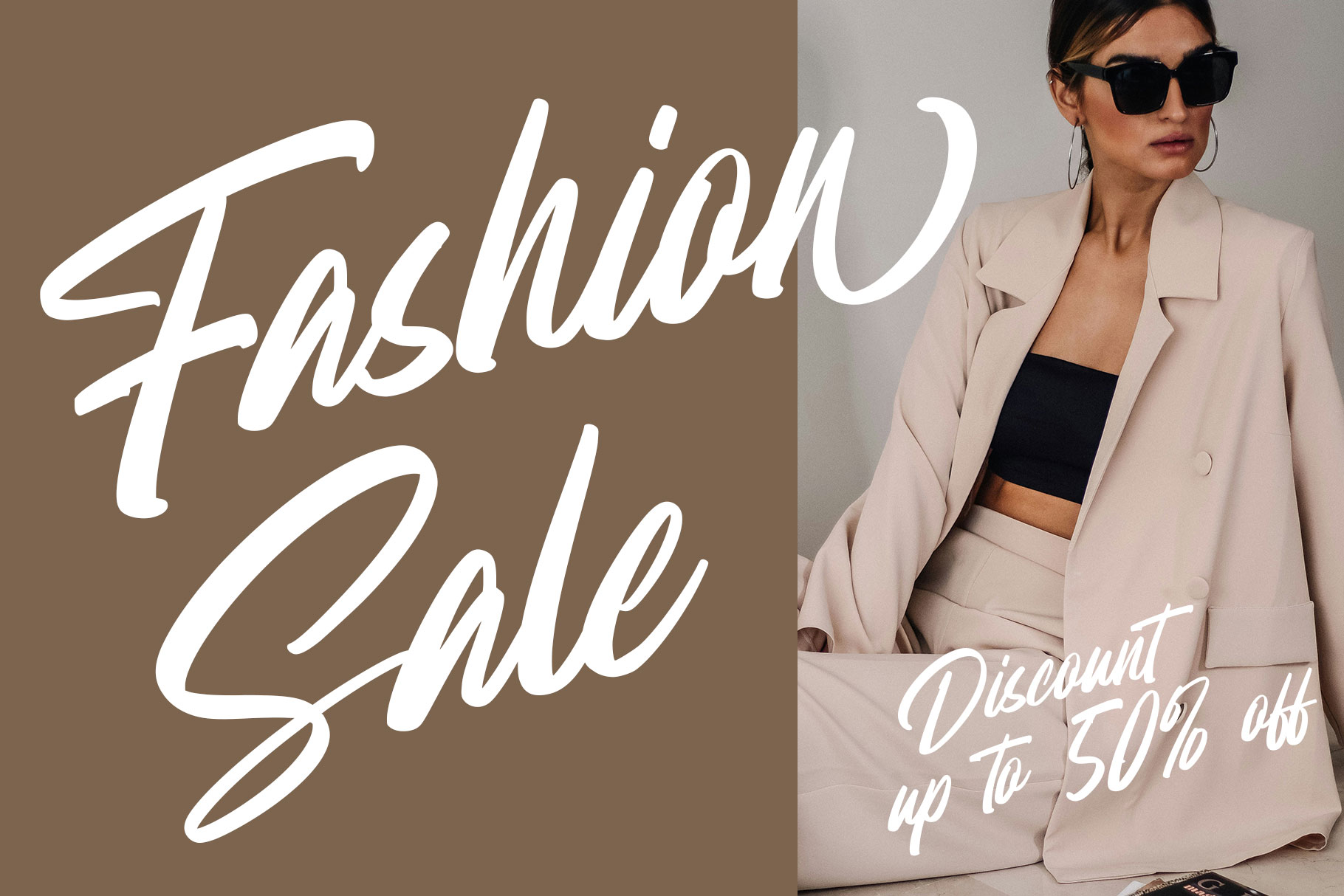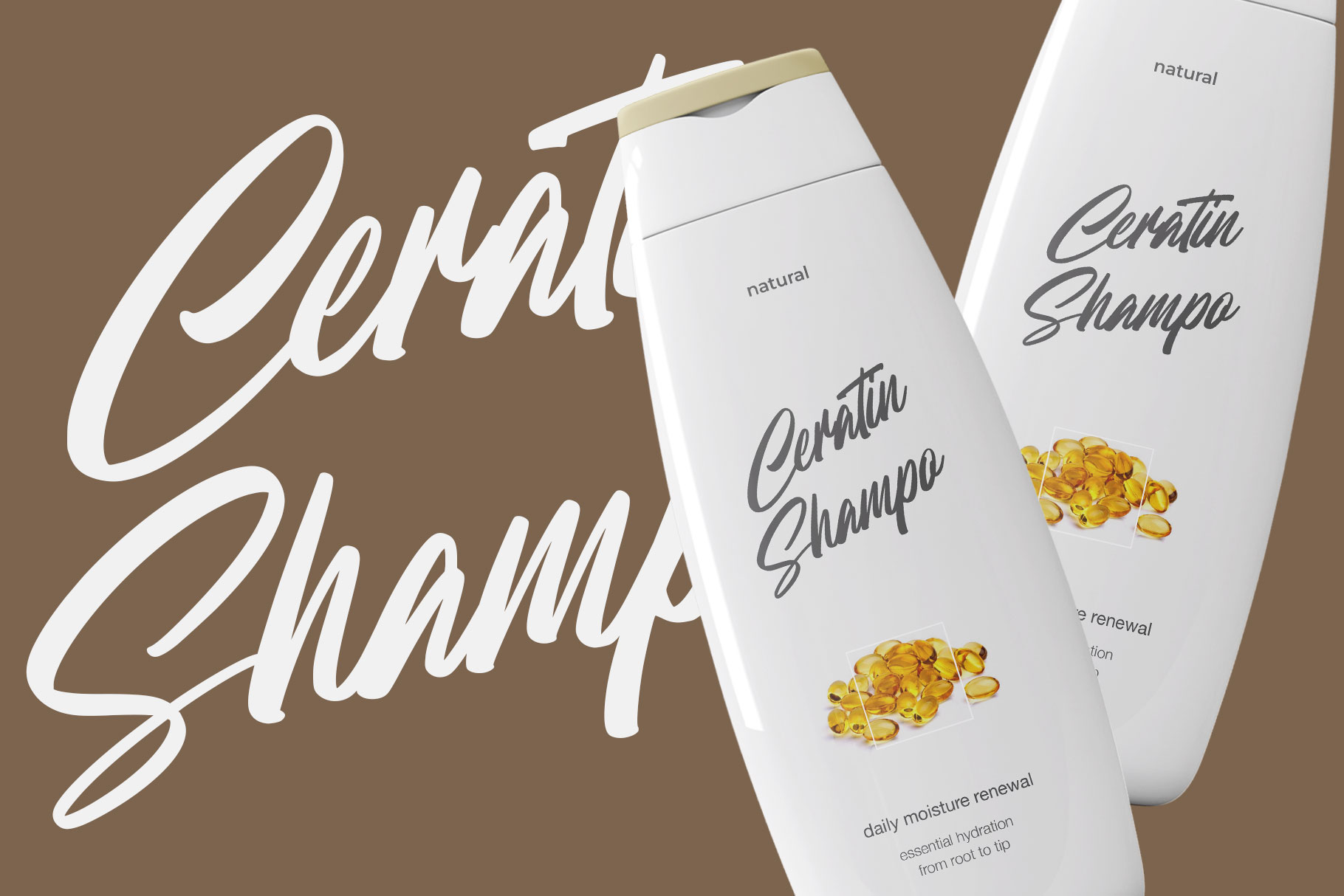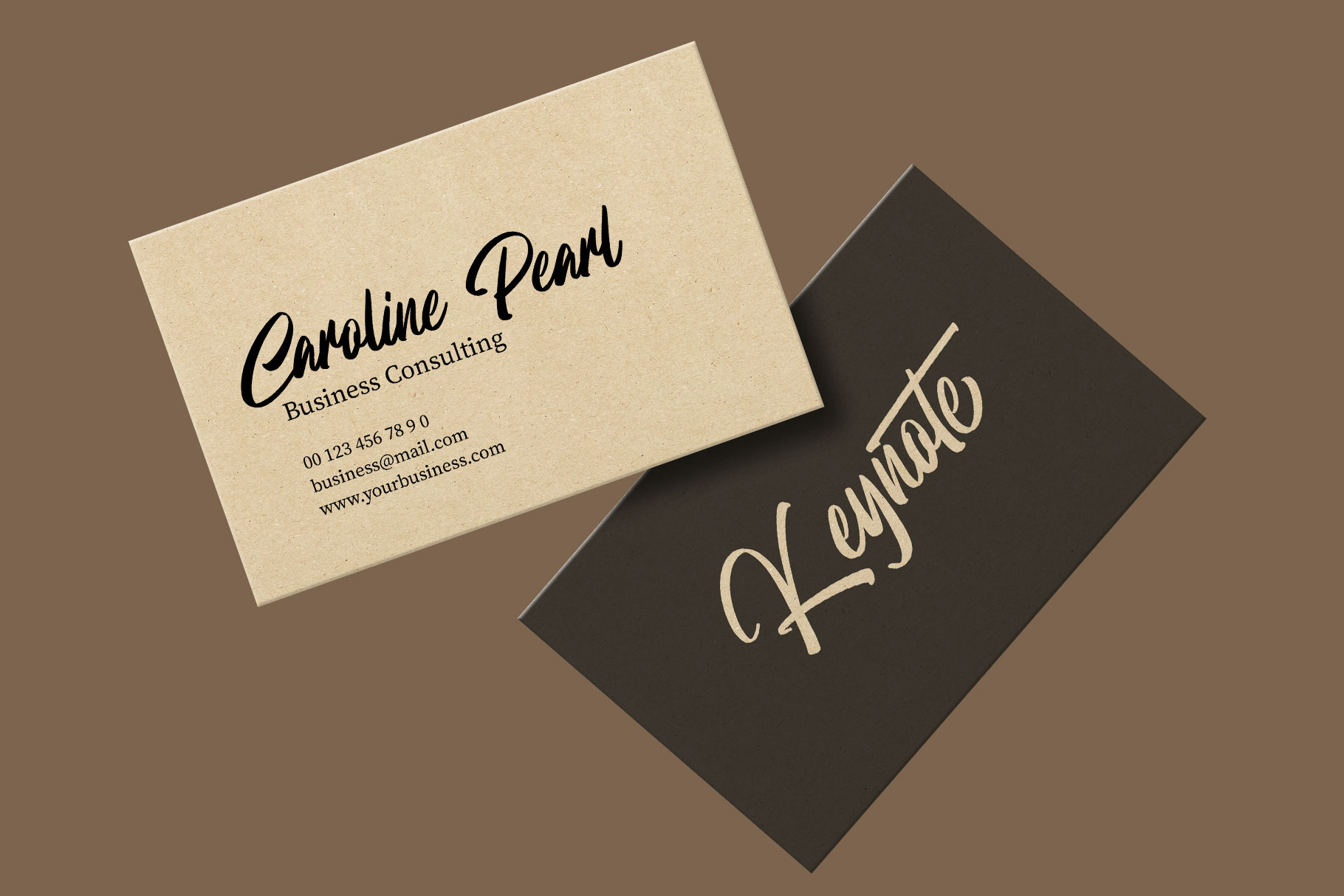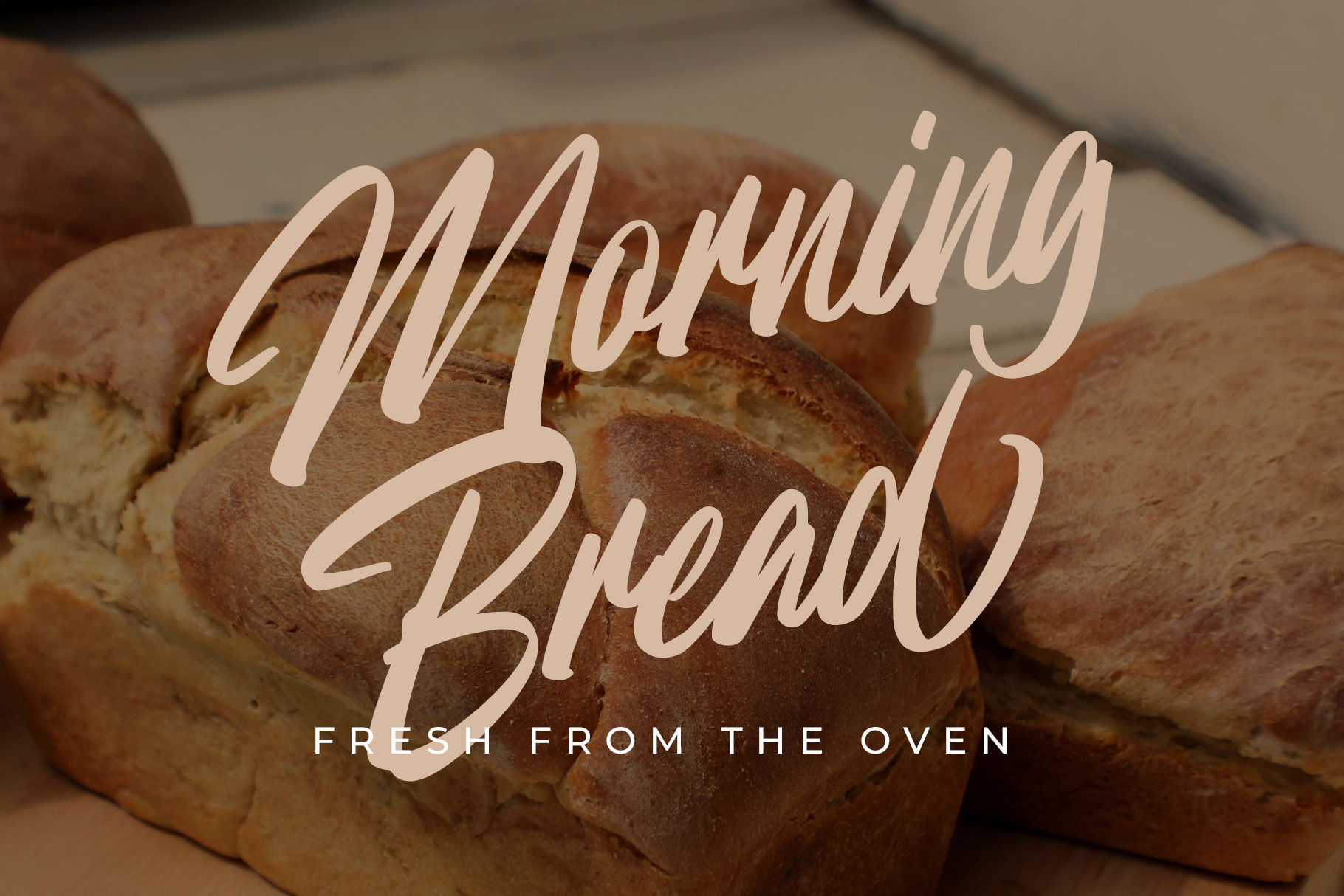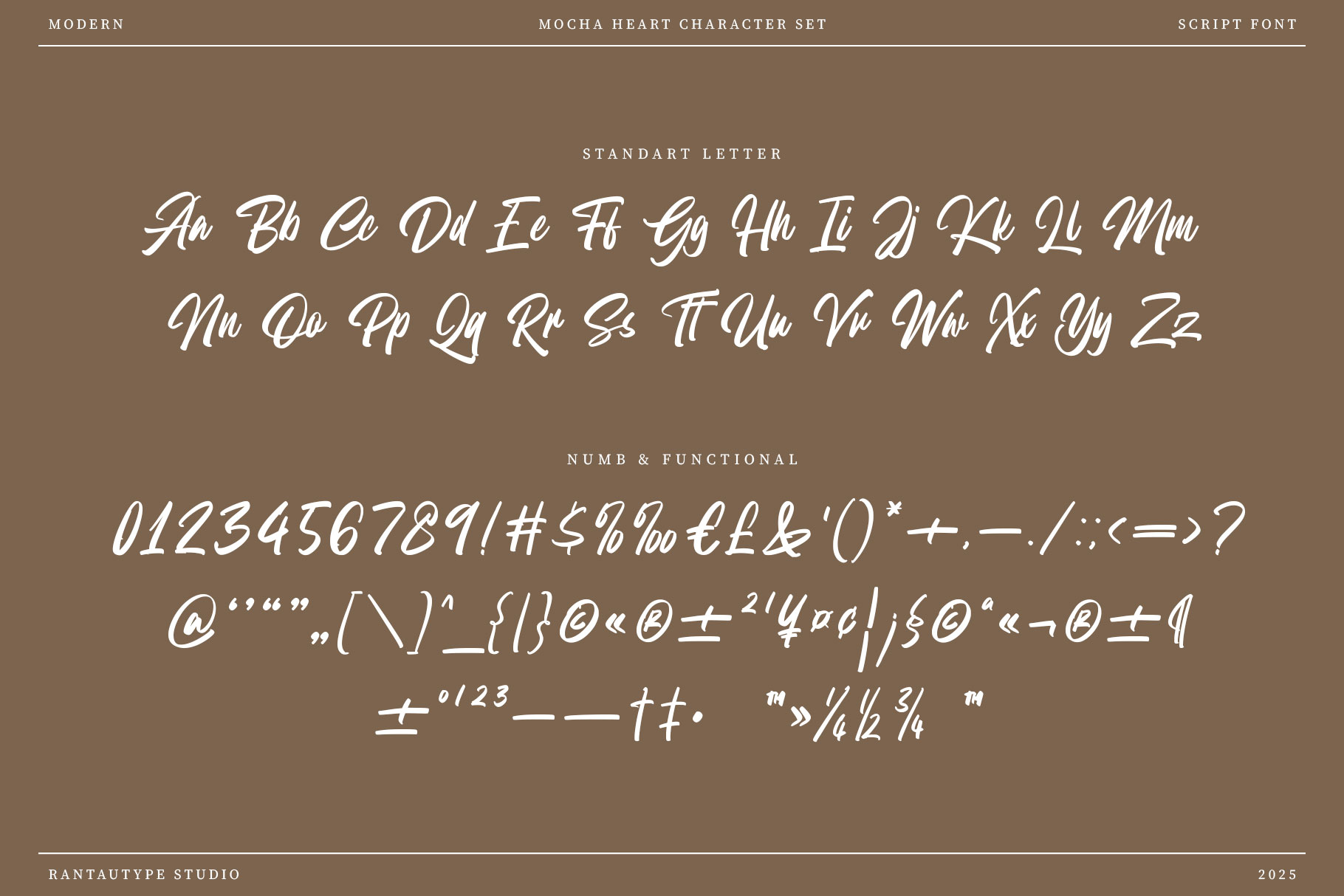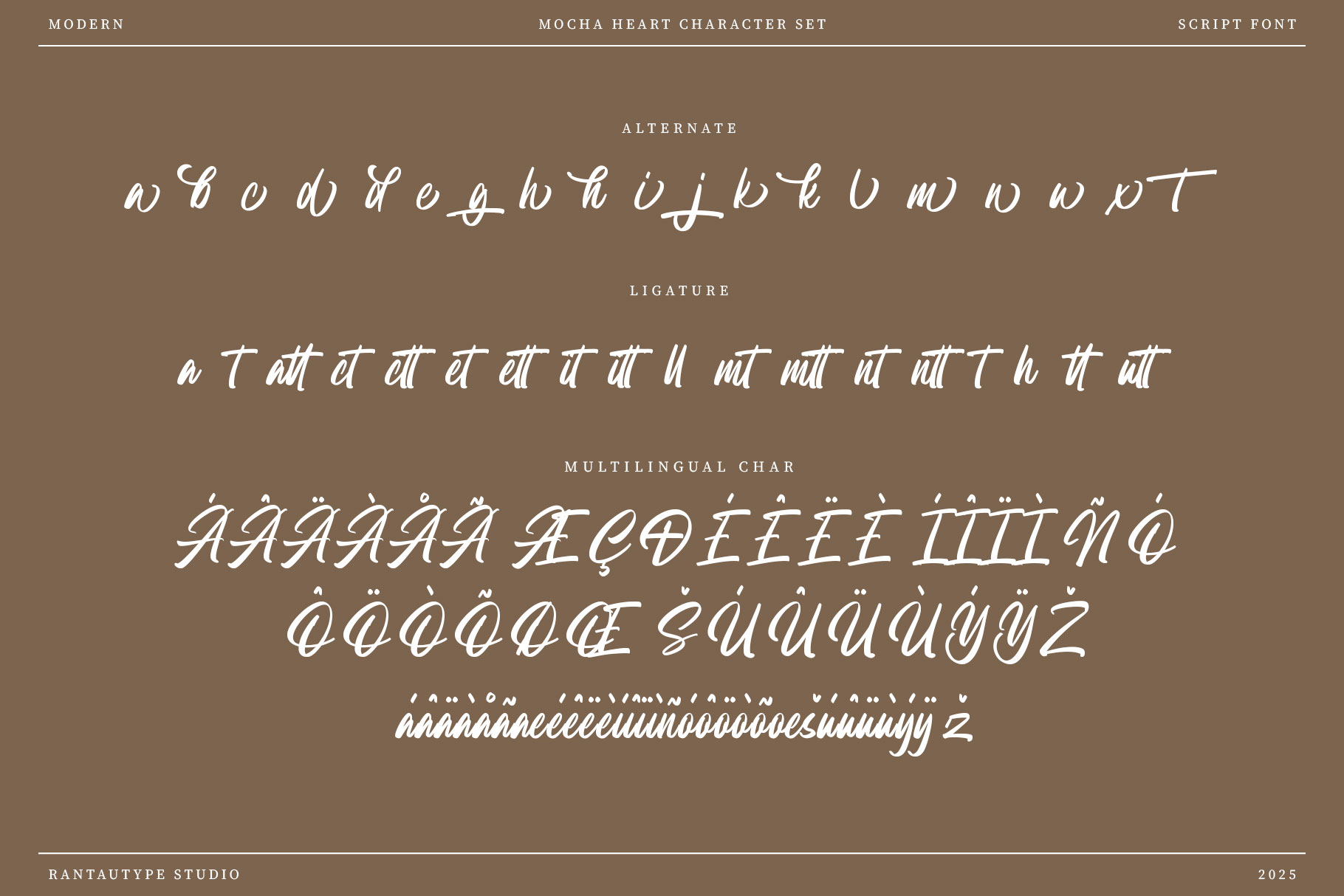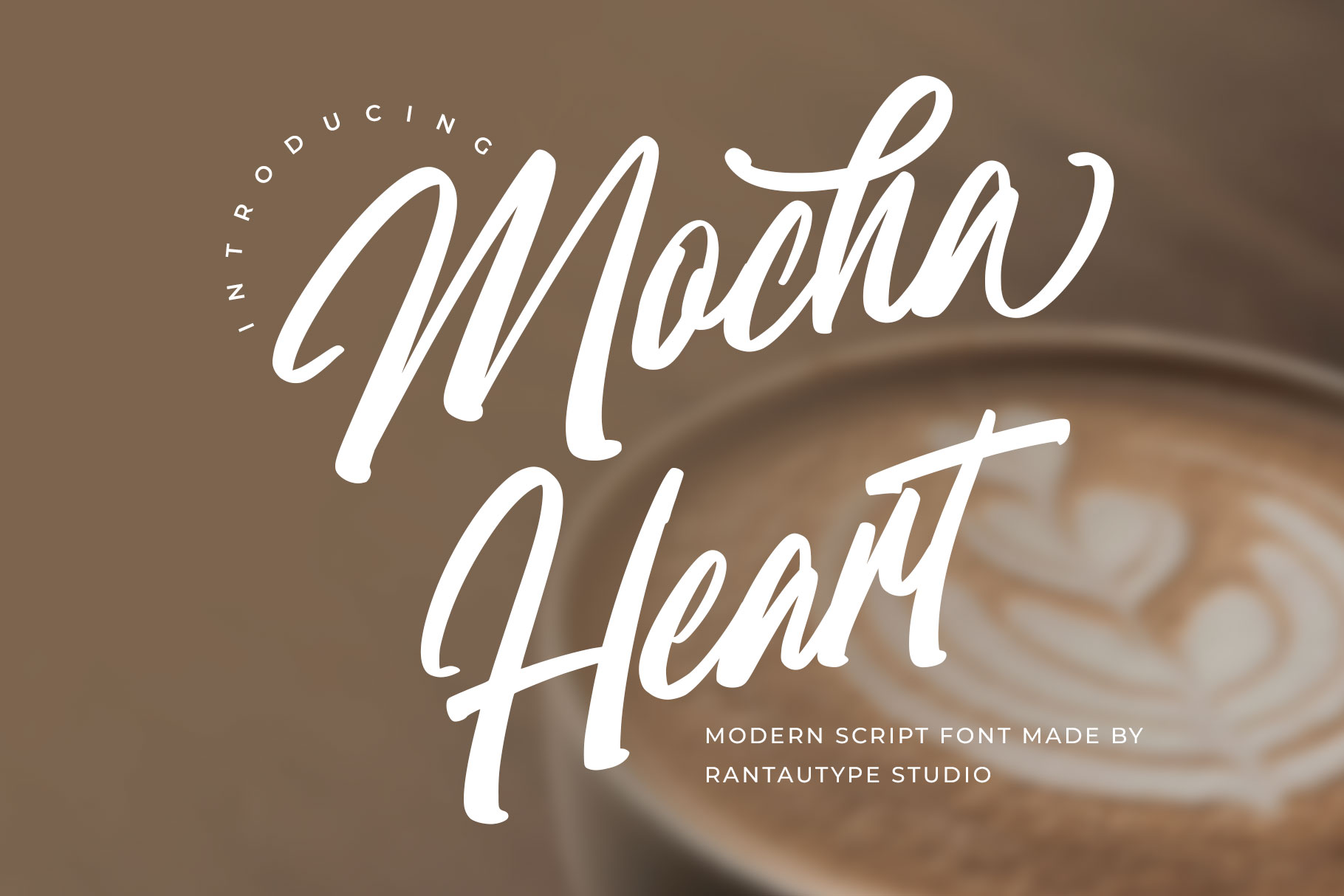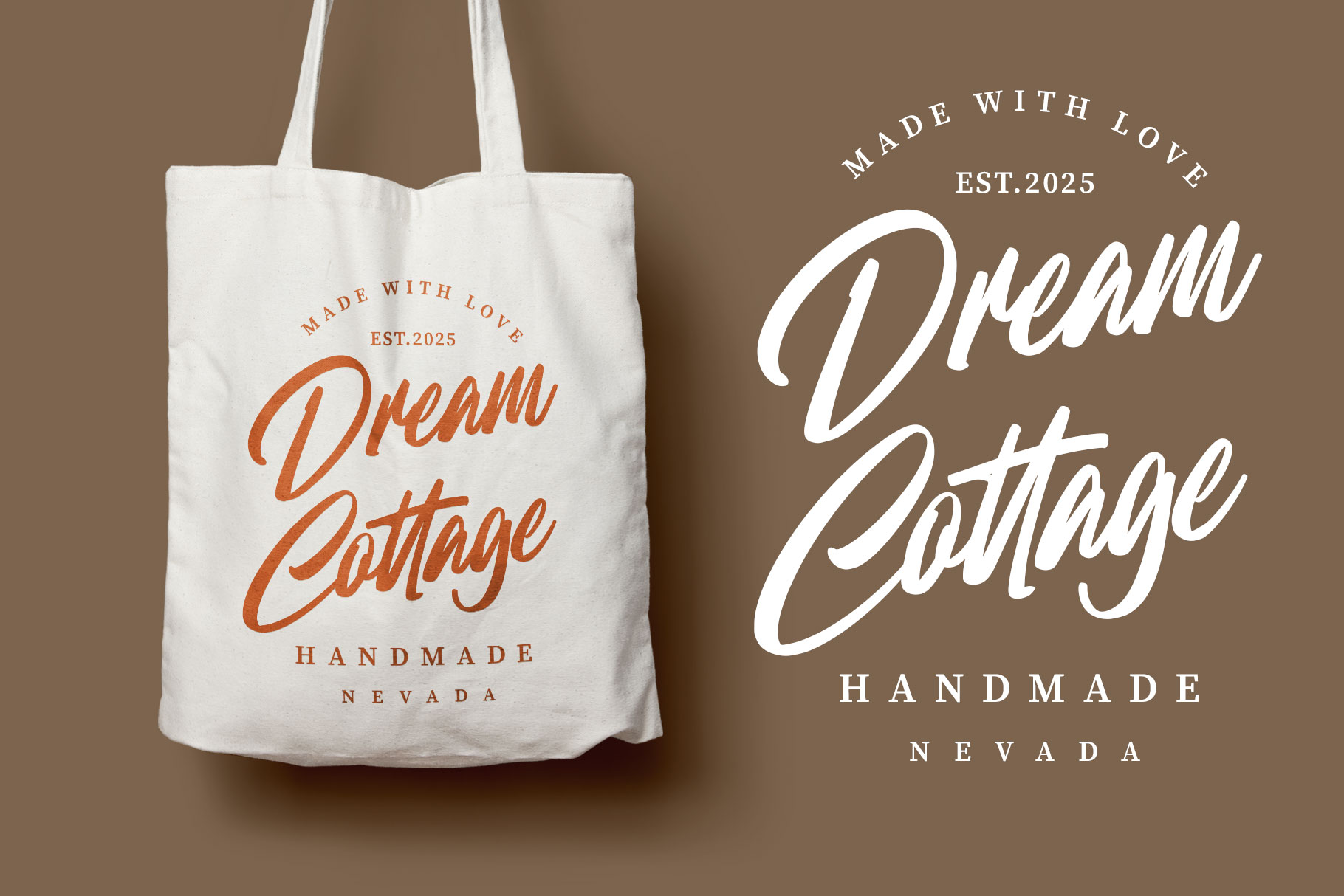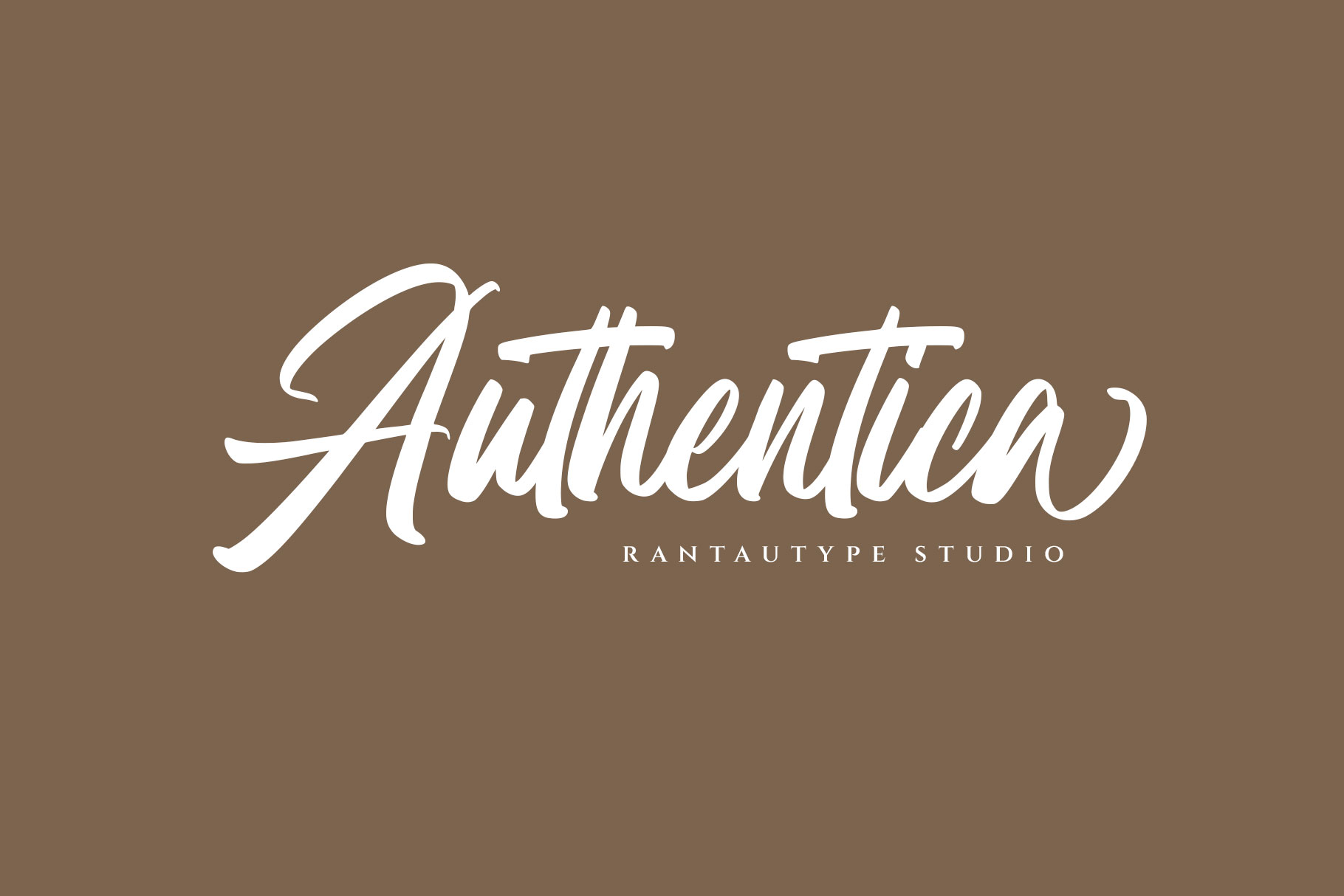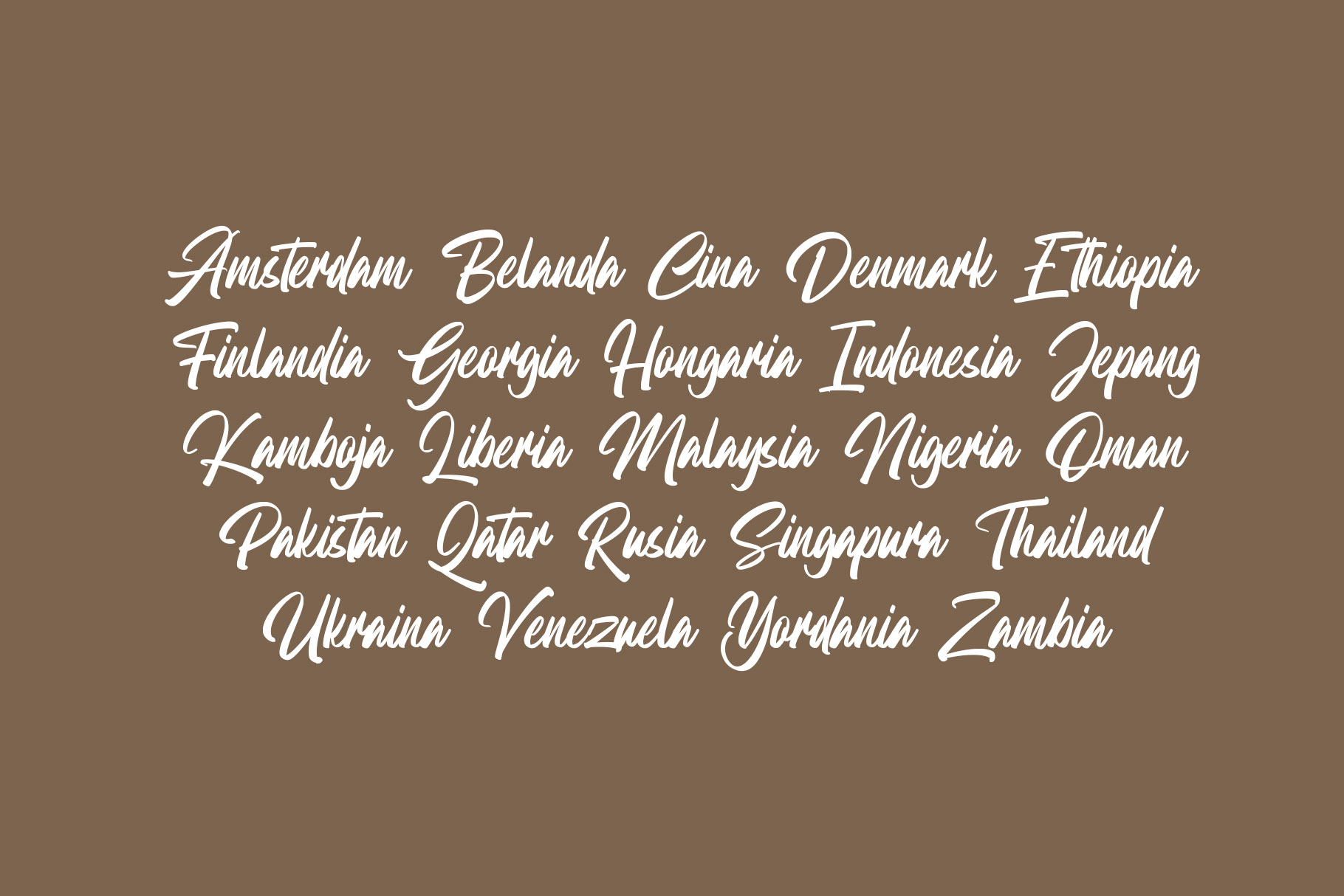
Mocha Heart Modern Script Font
Mocha Heart is modern script font made by Rantautype Studio. Mocha Heart is a perfectly choice for any creative endeavor, creating, modern, lifestyle design such as logotype, title, cover, branding, invitations, wedding designs, display and magazine, social media posts, advertisements, printed quotes, product packaging, corporate brand, product designs, labels, photography, watermarks, special events and any other project with modern touch.